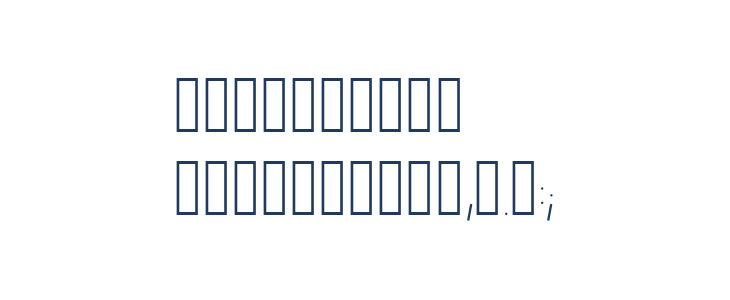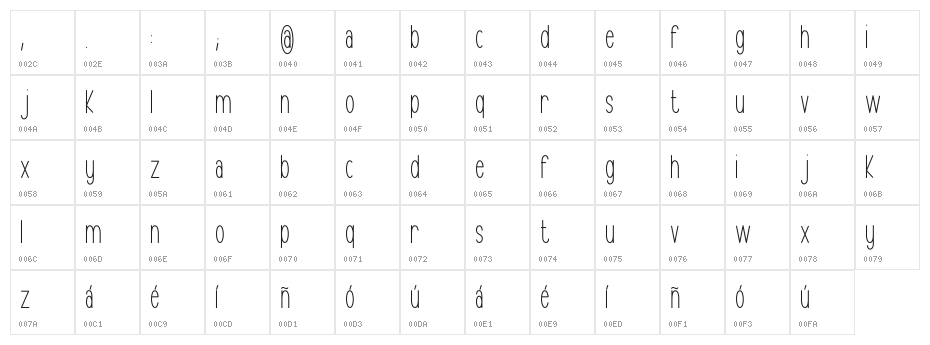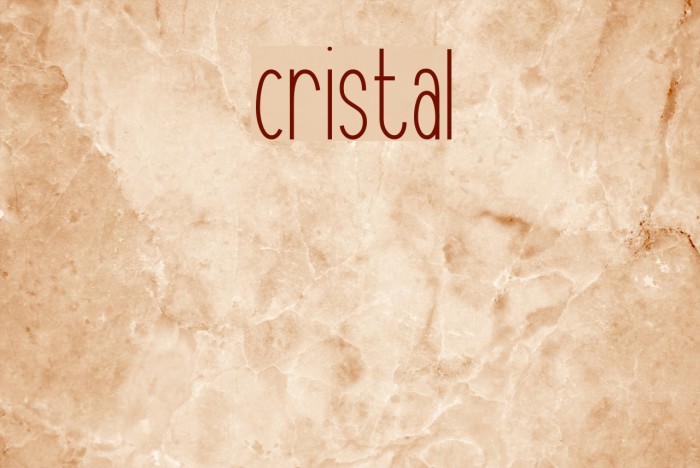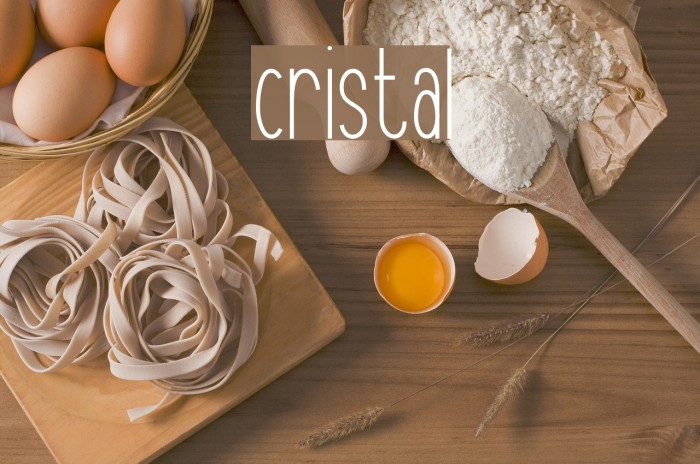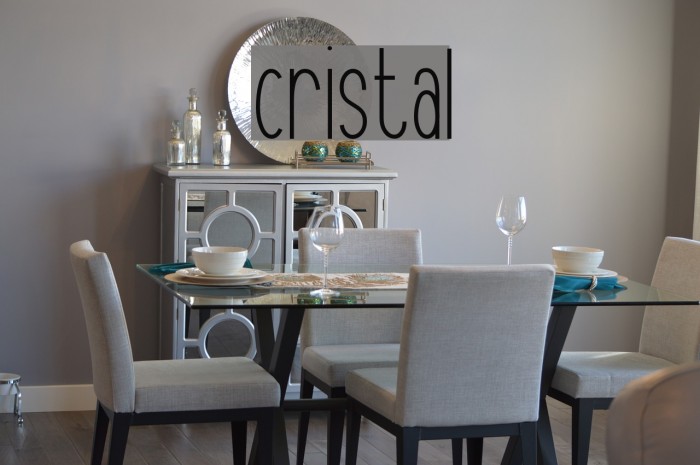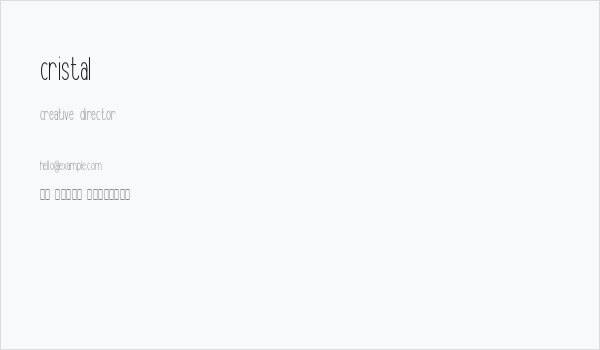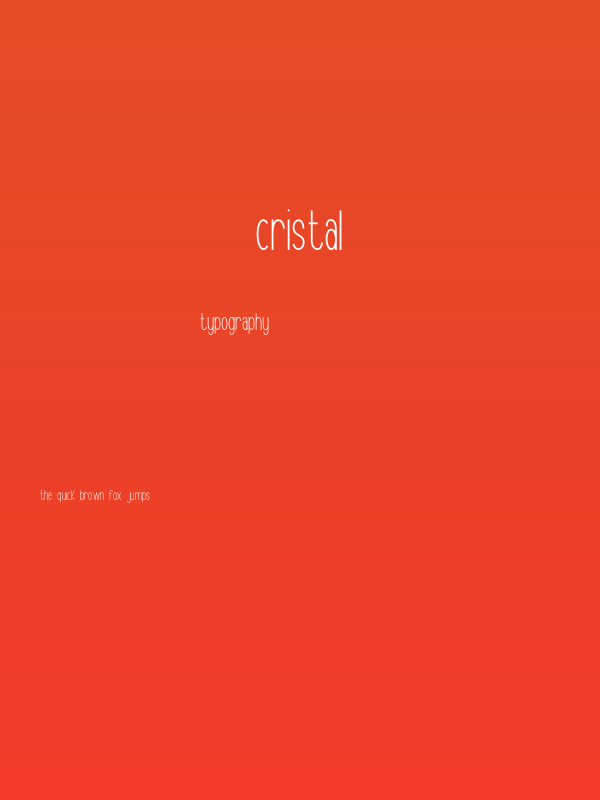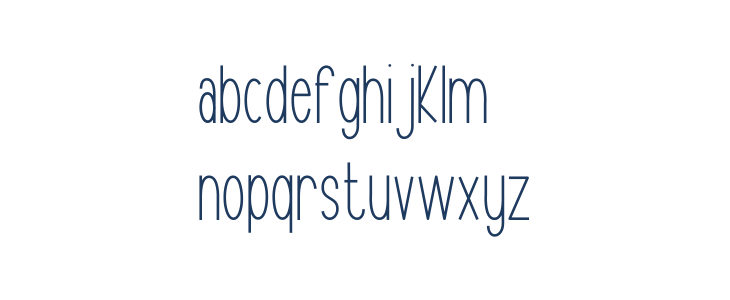
Cristal Font
Cristal Description
This font features a clean and modern sans-serif design with a tall, narrow structure. The characters are uniformly thin, giving it a sleek and elegant appearance. The vertical strokes are consistent in width, contributing to a minimalist aesthetic. The font maintains a uniform height across both uppercase and lowercase letters, enhancing readability. The rounded edges of the characters add a touch of softness, balancing the overall geometric style. This font is versatile, suitable for both digital and print media, and can be used effectively in various design contexts.